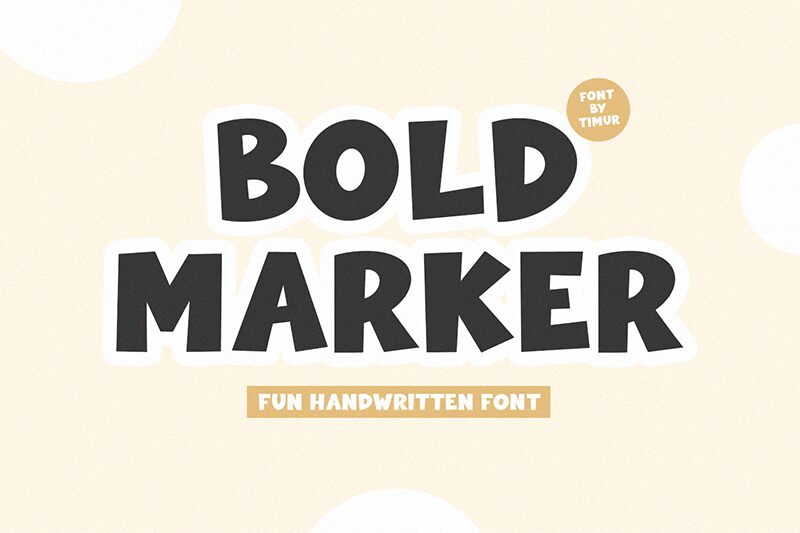
Bold Marker
Bold Marker, a captivating display font designed by Timur Type Studio, commands attention with its bold, comic-inspired aesthetic. This typeface exudes a playful, dynamic energy, evident in its thick, expressive strokes and rounded terminals. The font's striking visual impact immediately draws the eye, making it an excellent choice for attention-grabbing headlines, impactful branding, and eye-catching designs.
Bold Marker's versatility shines through its adaptability to a wide range of design contexts. Its bold, playful character lends itself well to vibrant, youthful projects, such as book covers, poster designs, and packaging. Furthermore, its distinct personality can elevate the visual identity of brands seeking to convey a sense of playfulness, creativity, and approachability.